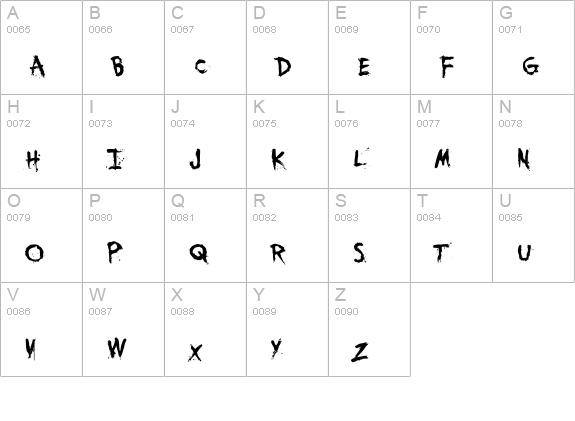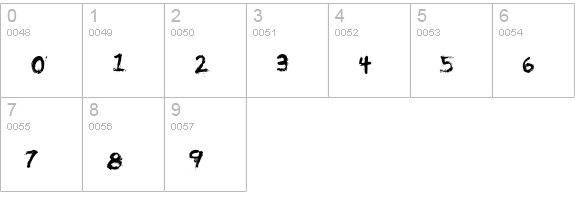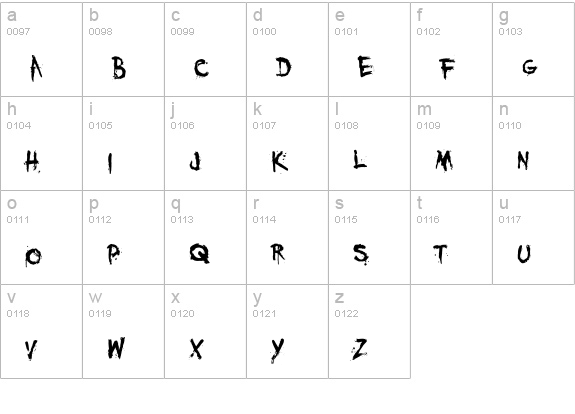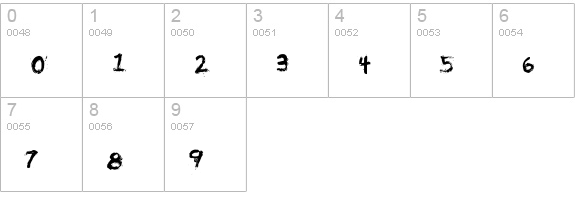
Introducing YouMurderer BB, a captivating and chilling font that will send shivers down your spine. This font exudes an eerie and mysterious aura, perfect for adding a touch of darkness to your designs. Whether you're working on a horror movie poster, a haunted house flyer, or a Halloween-themed invitation, YouMurderer BB will bring your creations to life with its spine-tingling presence. Crafted with meticulous attention to detail, YouMurderer BB features sharp, jagged edges and bold, asymmetric letterforms that embody the essence of fear and suspense. Every stroke of this font is expertly designed to evoke a sense of unease and anticipation, making it the ideal choice for any project seeking to leave a lasting impression. The versatility of YouMurderer BB knows no bounds. Its unique style allows it to seamlessly blend into various design themes, ranging from vintage horror to modern gothic. Whether you're aiming for a classic horror movie aesthetic or a contemporary haunted mansion vibe, this font will effortlessly complement your vision. And the best part? YouMurderer BB is available for free! You can easily download this bone-chilling font at FontsMarket.com, where you'll find an extensive collection of high-quality fonts for all your creative needs. Embrace the darkness, elevate your designs, and make a lasting impact with YouMurderer BB.